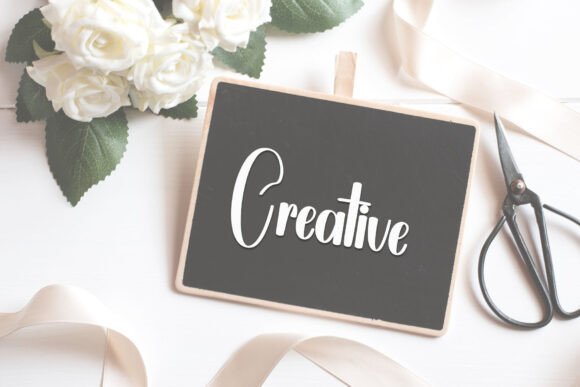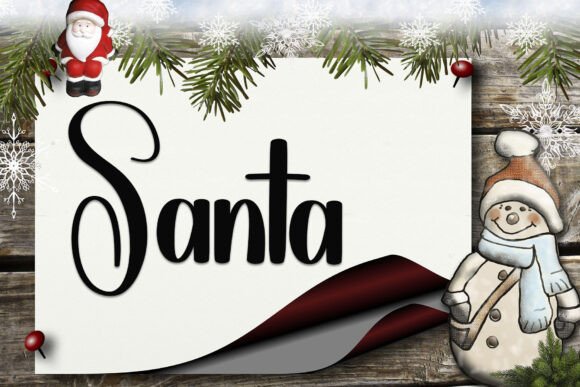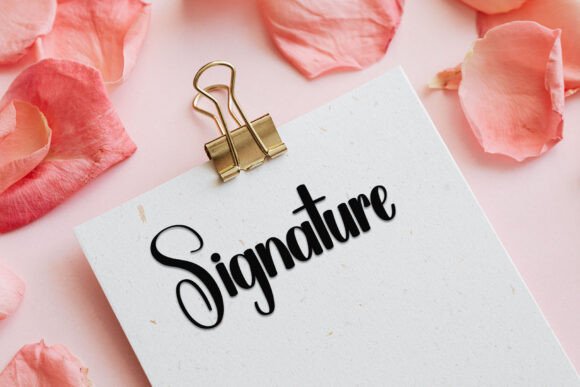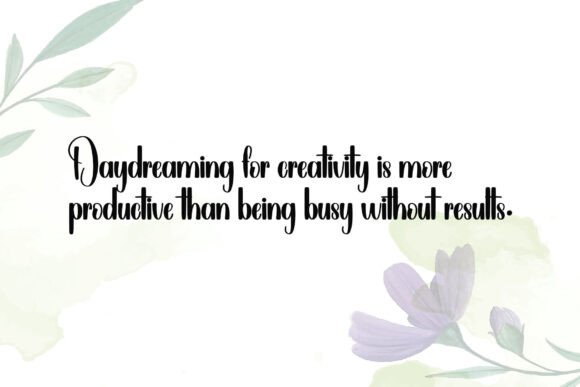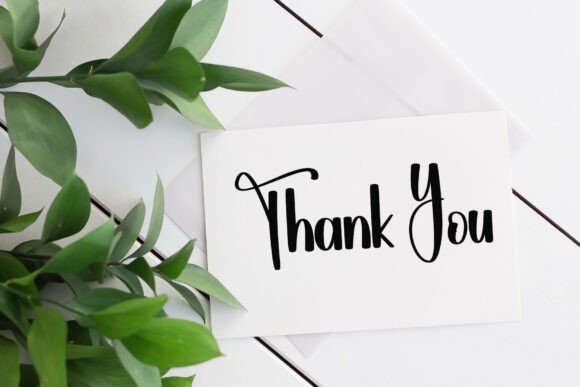
Bursting with Creativity: Introducing the Bubble Drink Font
Have you ever been brainstorming a design project, and suddenly, the perfect idea hits you? It’s like a spark of inspiration that sets your creativity ablaze. For designers, these moments are what make the job truly rewarding. And today, we’re excited to share one such spark that’s sure to inspire your next project: the Bubble Drink Font.
This beautiful, thin lettered script font is designed to add a touch of elegance and whimsy to your designs. Whether you’re creating gorgeous wedding invitations, beautiful stationery art, or eye-catching social media posts, the Bubble Drink Font is the perfect companion to bring your vision to life. Its simplicity and versatility make it a valuable asset for designers looking to add a unique flair to their work.
Bubble Drink Font Key Features
- Font Style: A playful, cursive font with a bubbly and dynamic feel, perfect for creating a fun and youthful atmosphere.
- Character Count: The font contains a wide range of characters, including uppercase and lowercase letters, numbers, and punctuation marks.
- Unique Characteristics: The font features a unique blend of rounded and pointed shapes, creating a visually appealing and eye-catching effect.
Bubble Drink Font Review
Bubble Drink Font is a fun and playful font that’s perfect for designing drinks menus, cafe logos, and other food-related branding materials. Here’s what I think about this font:
- Unique design: The font has a distinctive bubble-like shape that adds a whimsical touch to any design.
- Legibility: The font is easy to read, even at smaller font sizes, making it suitable for a variety of applications.
- Variety of styles: The font comes in multiple weights and styles, allowing designers to mix and match to create a unique look.
- Not ideal for body text: While the font is great for headings and titles, it may not be the best choice for large blocks of body text.
- Limited versatility: The font’s playful design may not be suitable for more formal or serious branding materials.
Overall, I think Bubble Drink Font is a great addition to any designer’s toolkit. Its unique design and versatility make it perfect for a variety of applications, but its limitations mean it’s not a one-size-fits-all solution.
For best results, use the Bubble Drink Font in conjunction with colorful backgrounds and playful graphics.
For best results, use the Bubble Drink Font in bold, playful combinations with bright colors and fun graphics.
Tips for Getting the Most Out of the Bubble Drink Font
Use the Bubble Drink Font in conjunction with other playful graphics and colorful backgrounds to create a fun and engaging design.
Experiment with different font sizes, colors, and spacing to create a unique and eye-catching design.